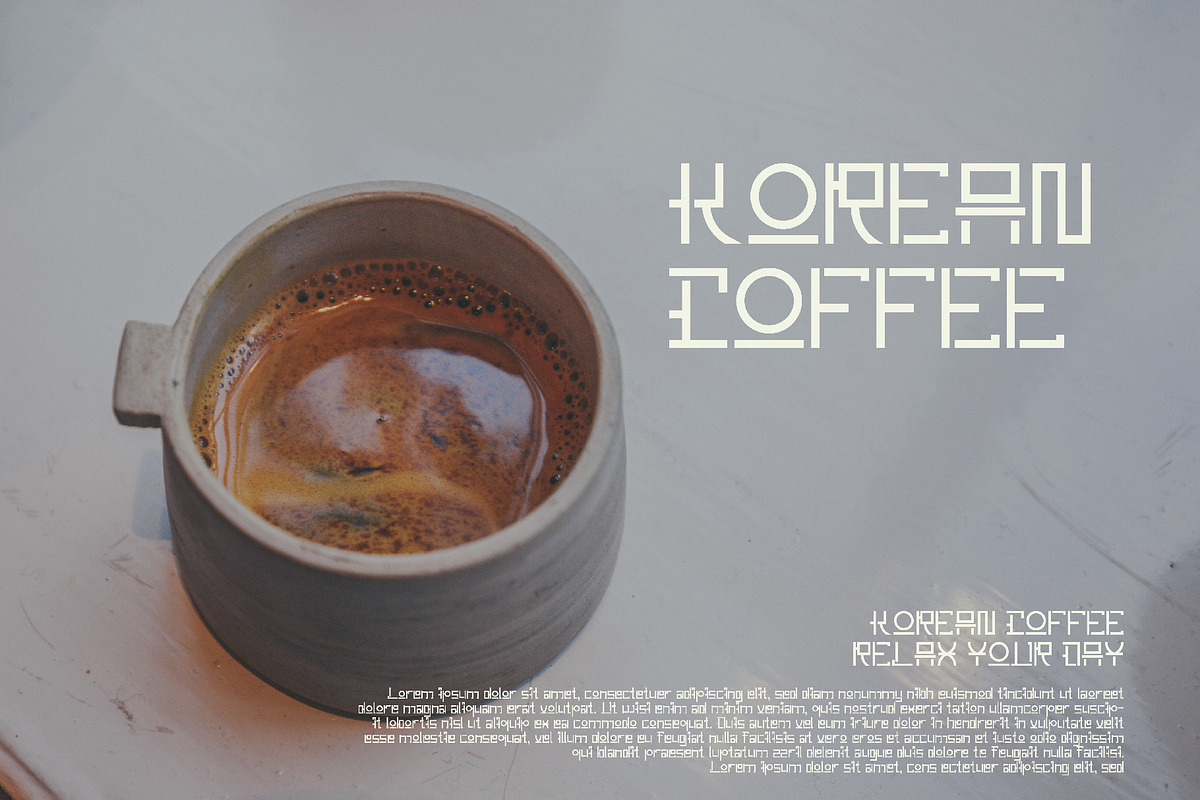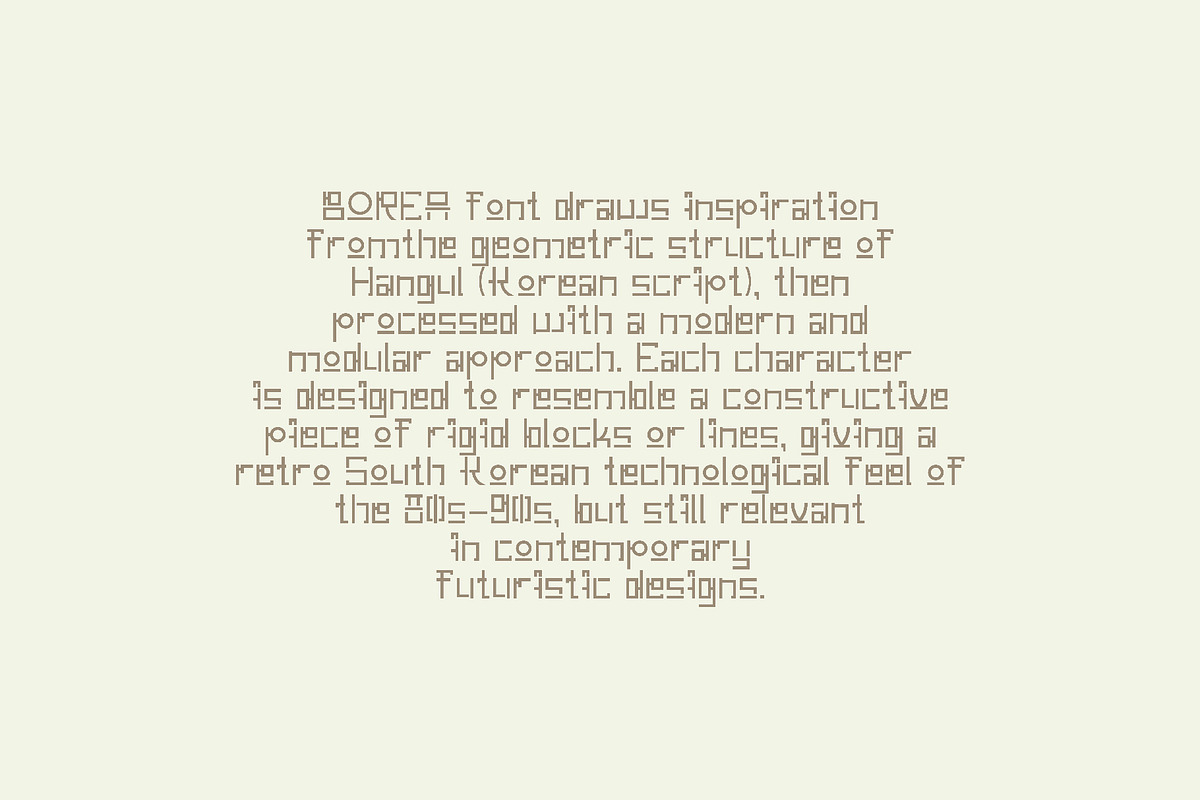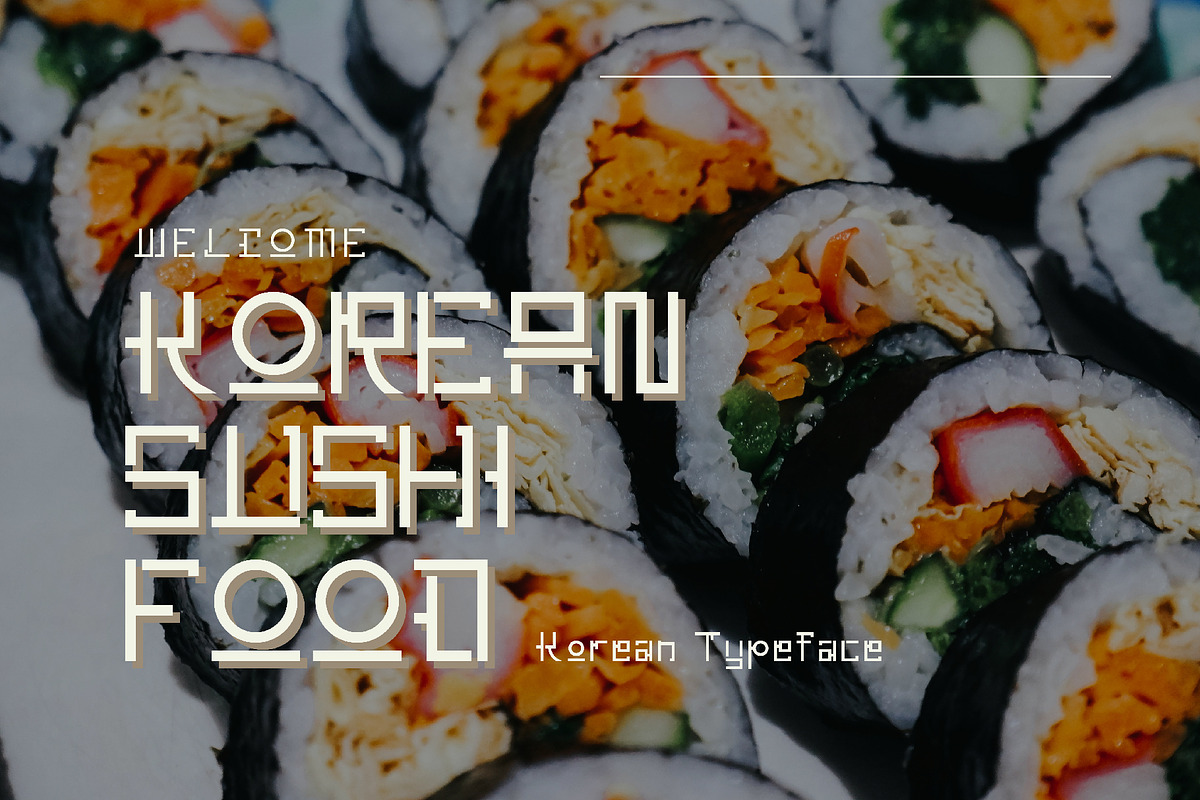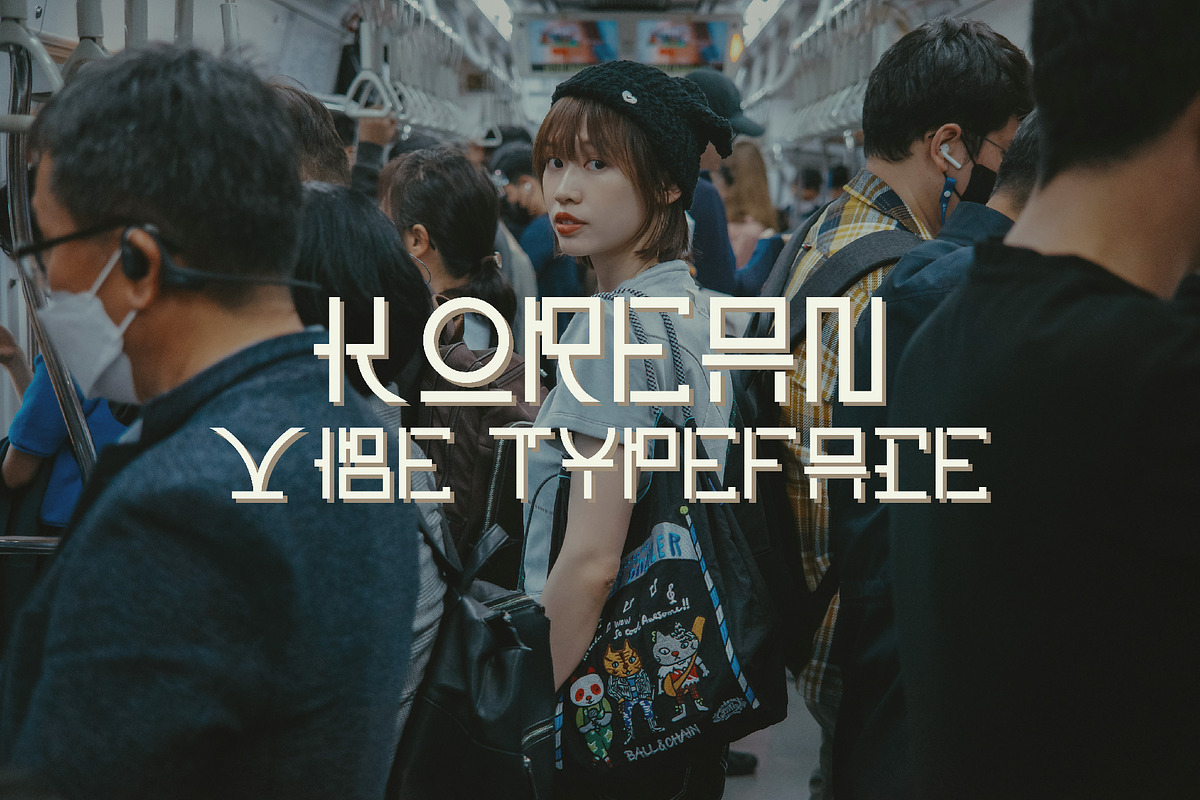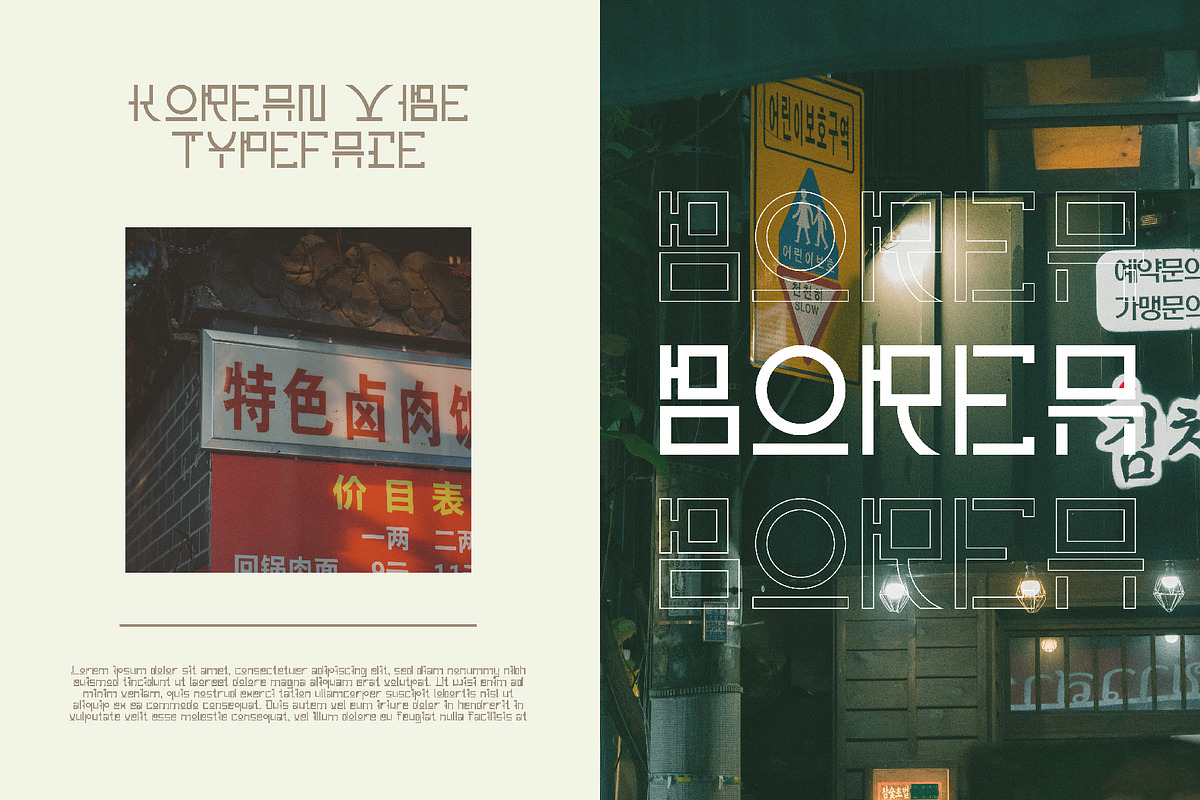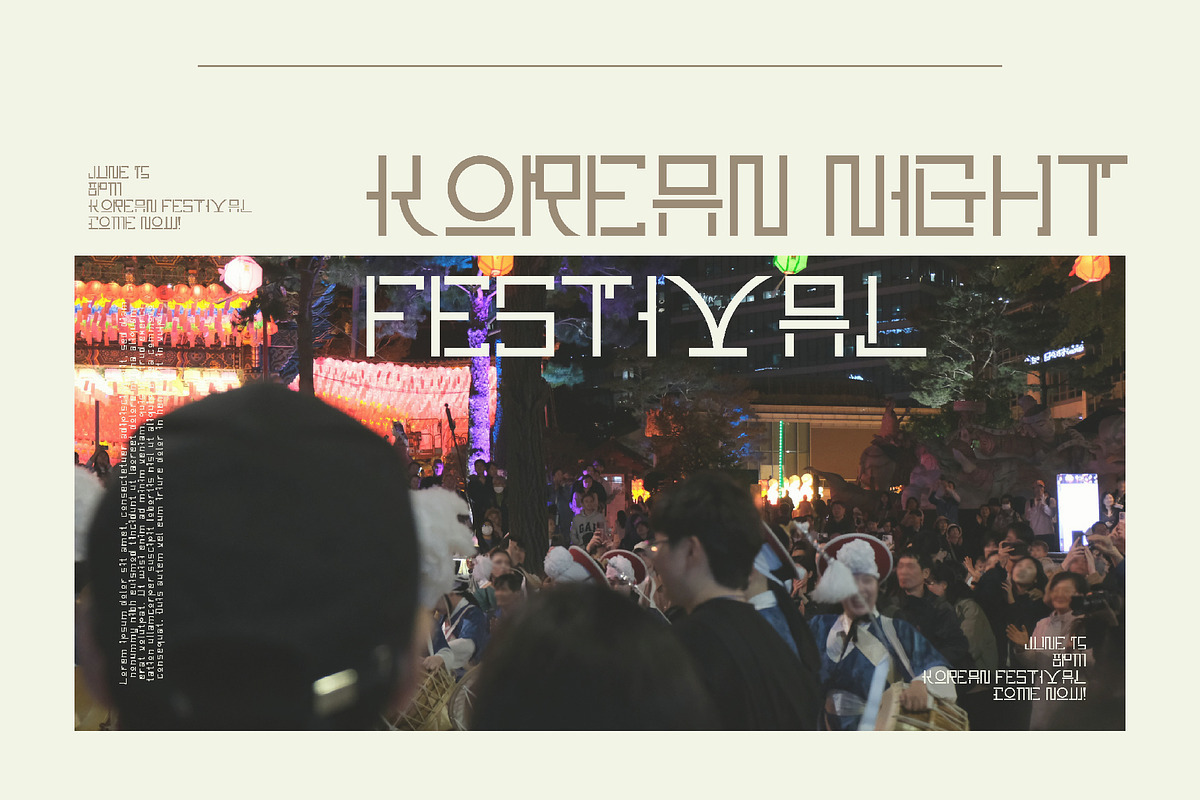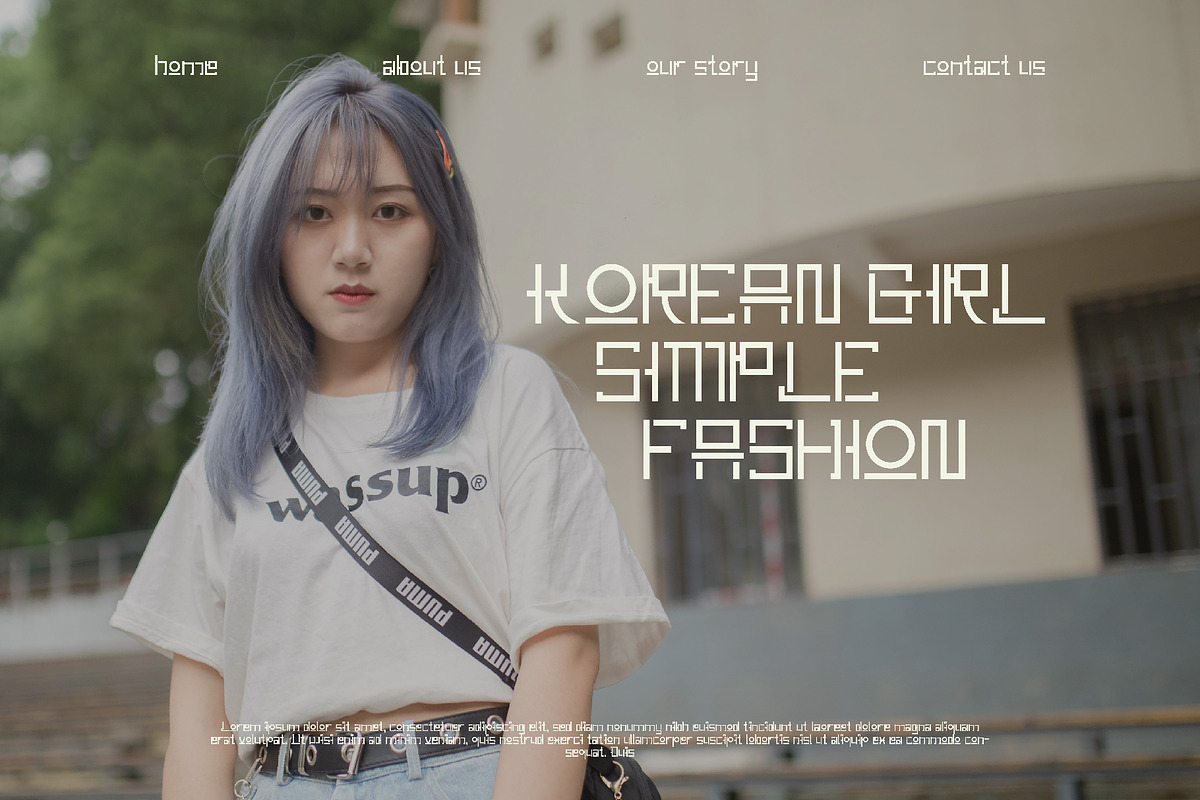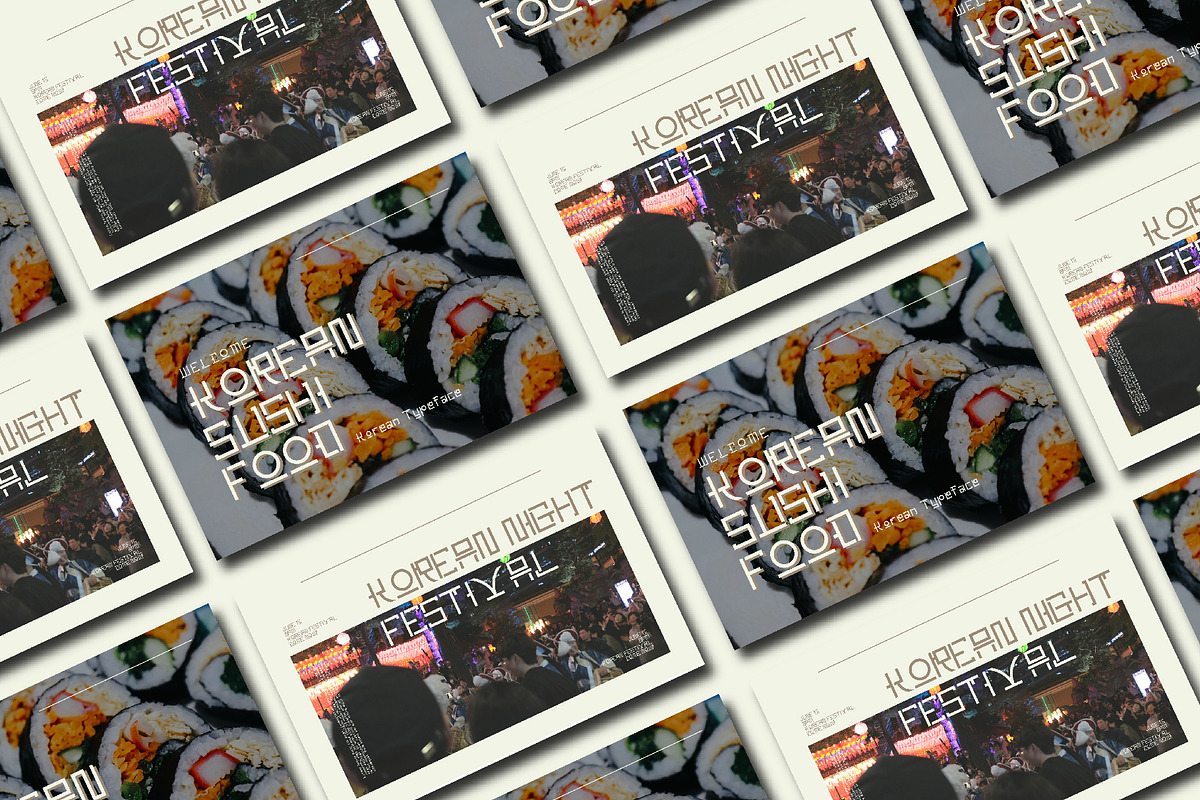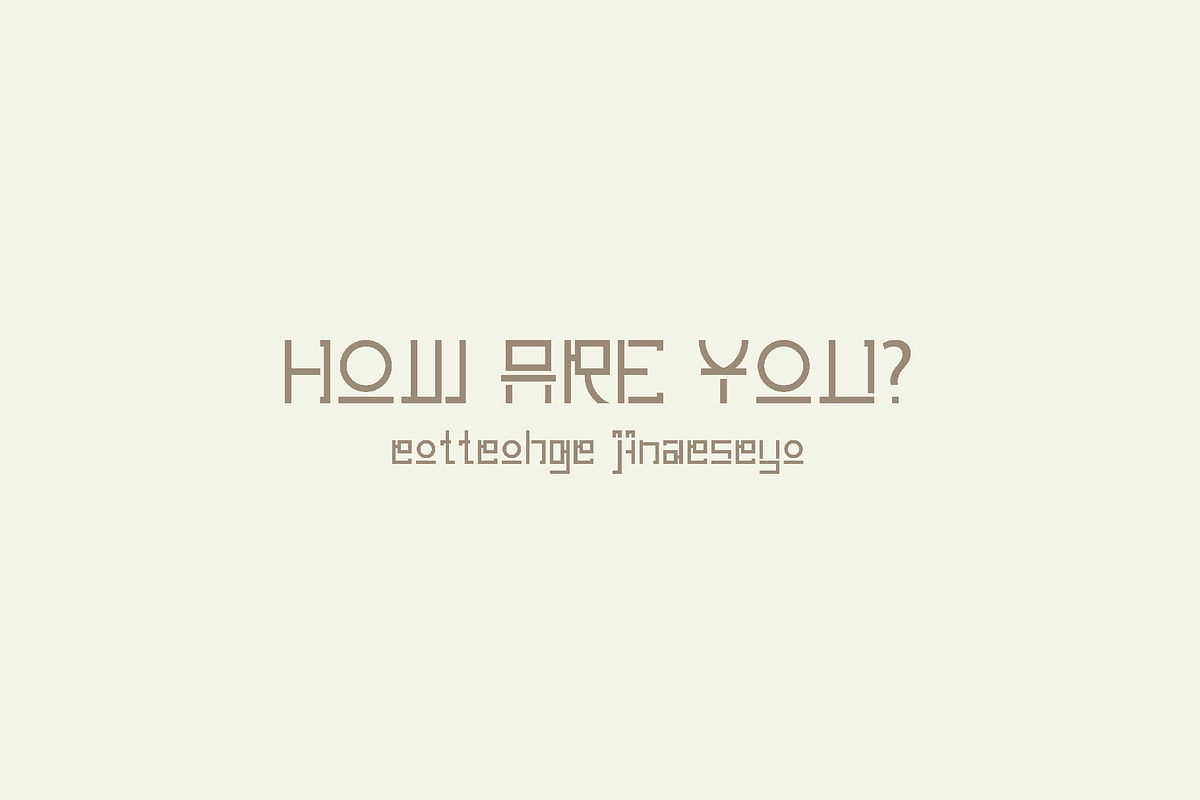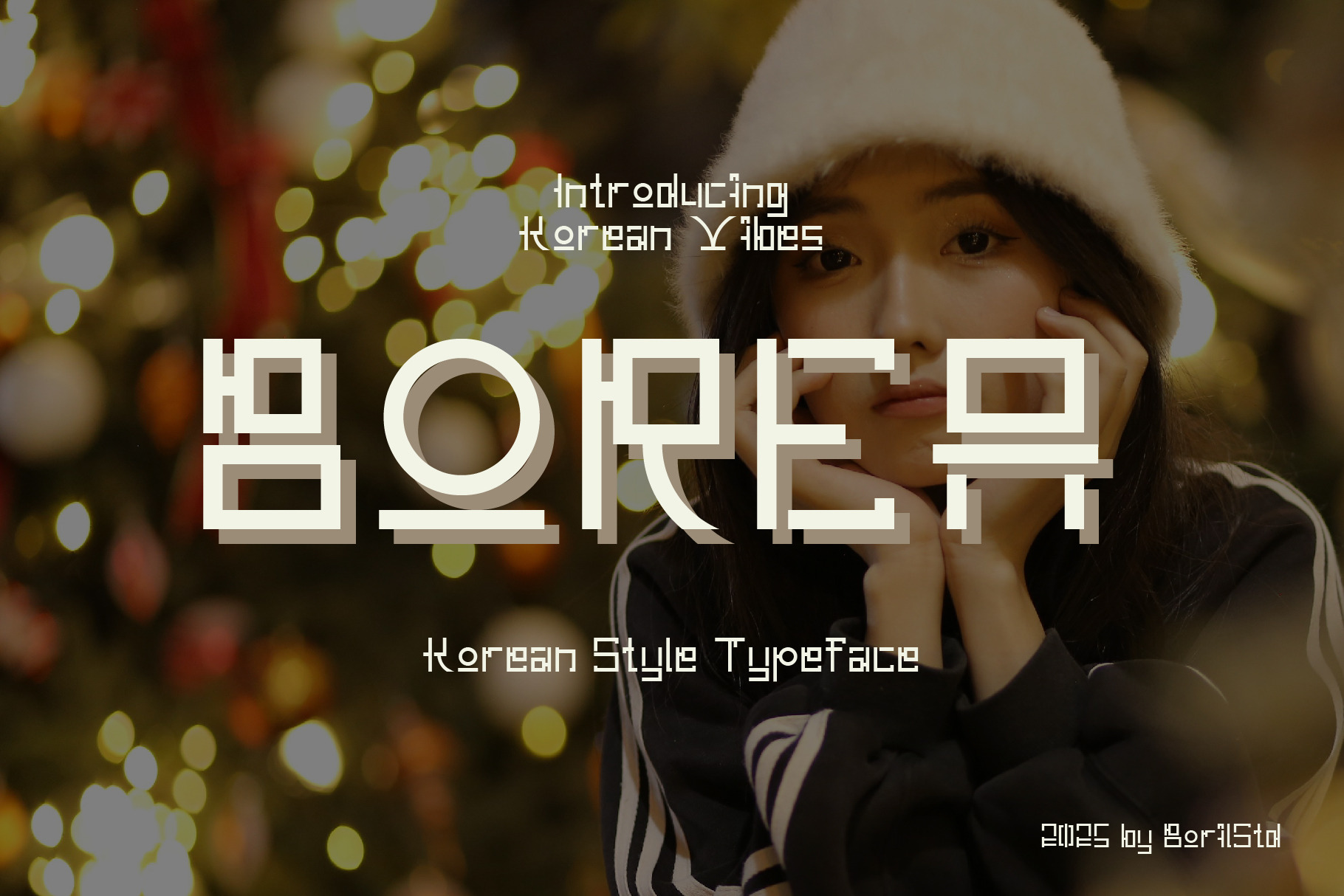
BOREA - Korean Style Typeface
BOREA font draws inspiration fromthe geometric structure of Hangul (Korean script), then processed with a modern and modular approach. Each character is designed to resemble a constructive piece of rigid blocks or lines, giving a retro South Korean technological feel of the 80s–90s, but still relevant in contemporary futuristic designs.